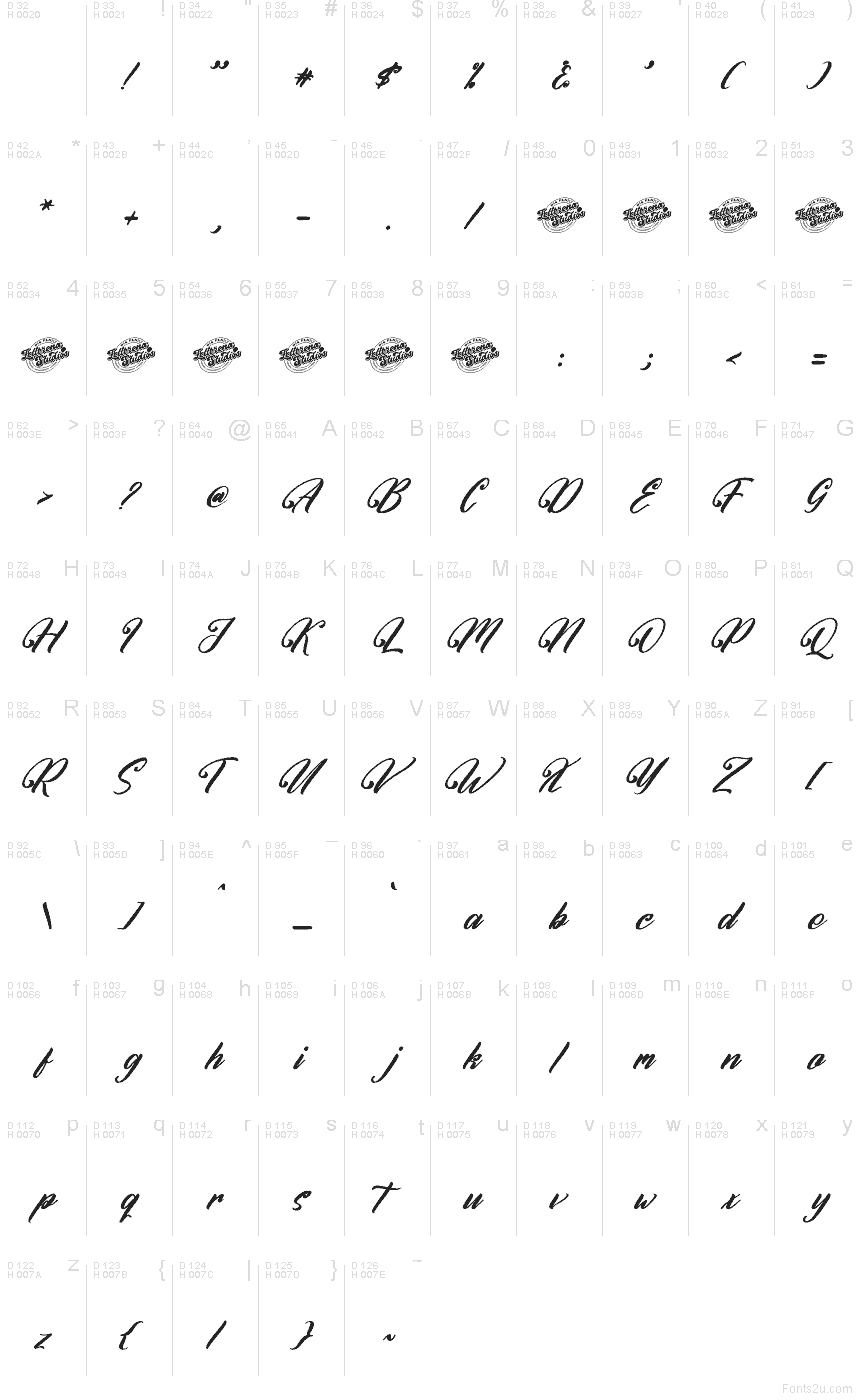
Qentyson Humberta DEMO VERSION Italic
Qentyson Humberta Italic font by Letterena Studios is a free handwritten signature typeface with an elegant, inky flow. Letters sweep into each other with smooth, confident curves, like a quick but practiced autograph, while the thick-and-thin strokes add a soft, romantic energy. It feels personal and slightly dramatic, giving even short words a sense of occasion and flair.
Using Qentyson Humberta Italic, your designs gain that “custom script” look that shines on wedding invitations, photography watermarks, boutique logos, beauty packaging, social media quotes, and personal stationery. This free font reads best at larger sizes where its loops and flourishes can breathe. For a polished brand system, pair Qentyson Humberta Italic with a clean, minimal sans serif to handle small text and keep the script as the star.